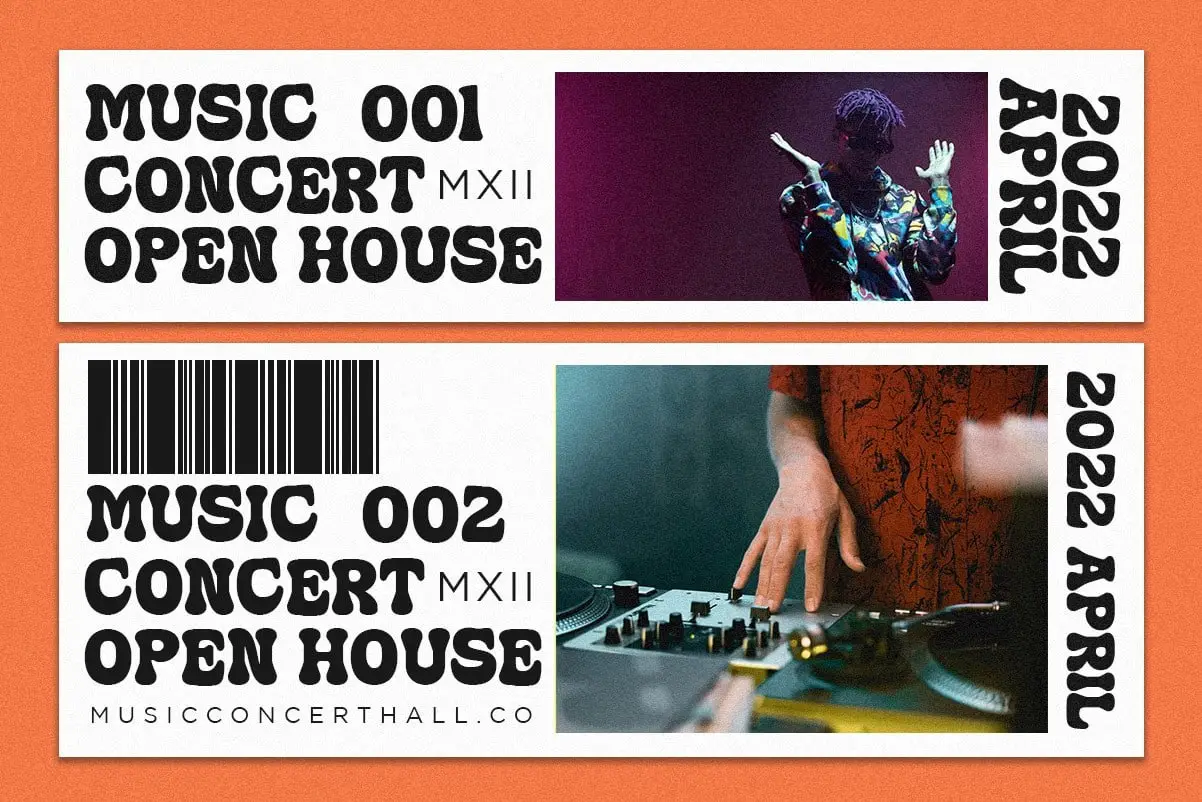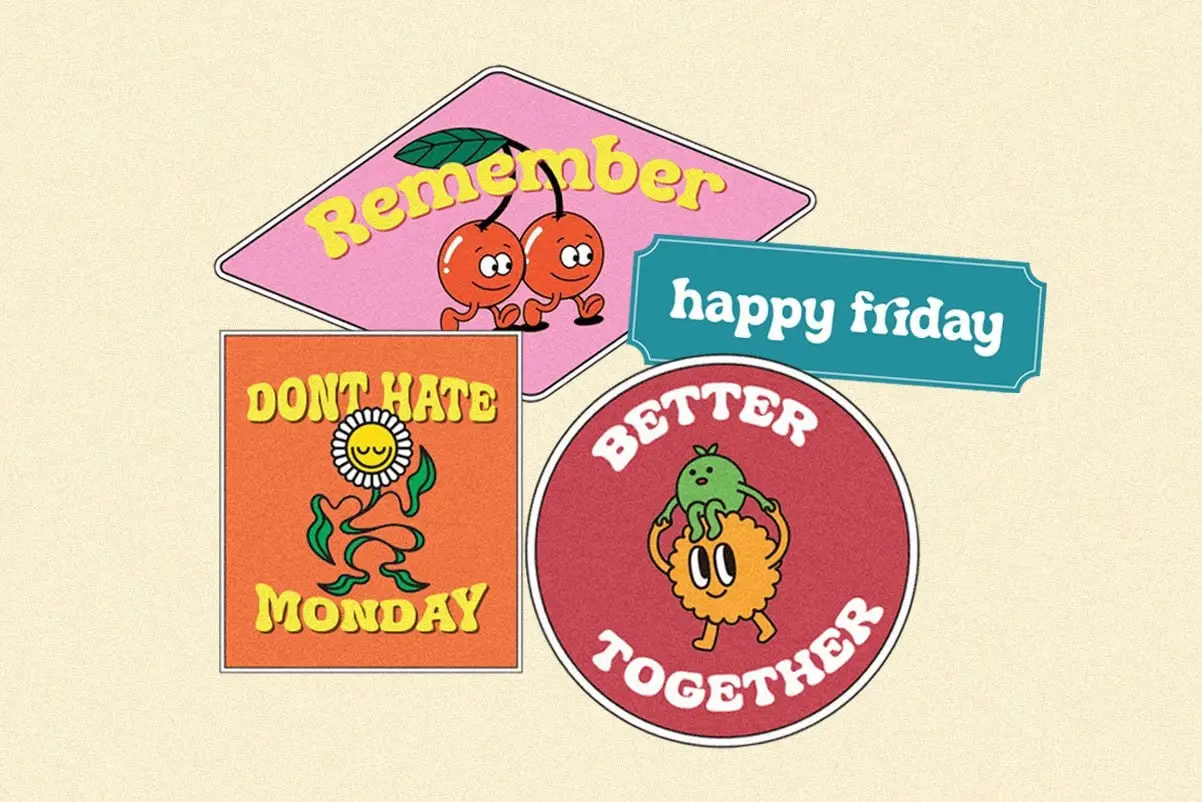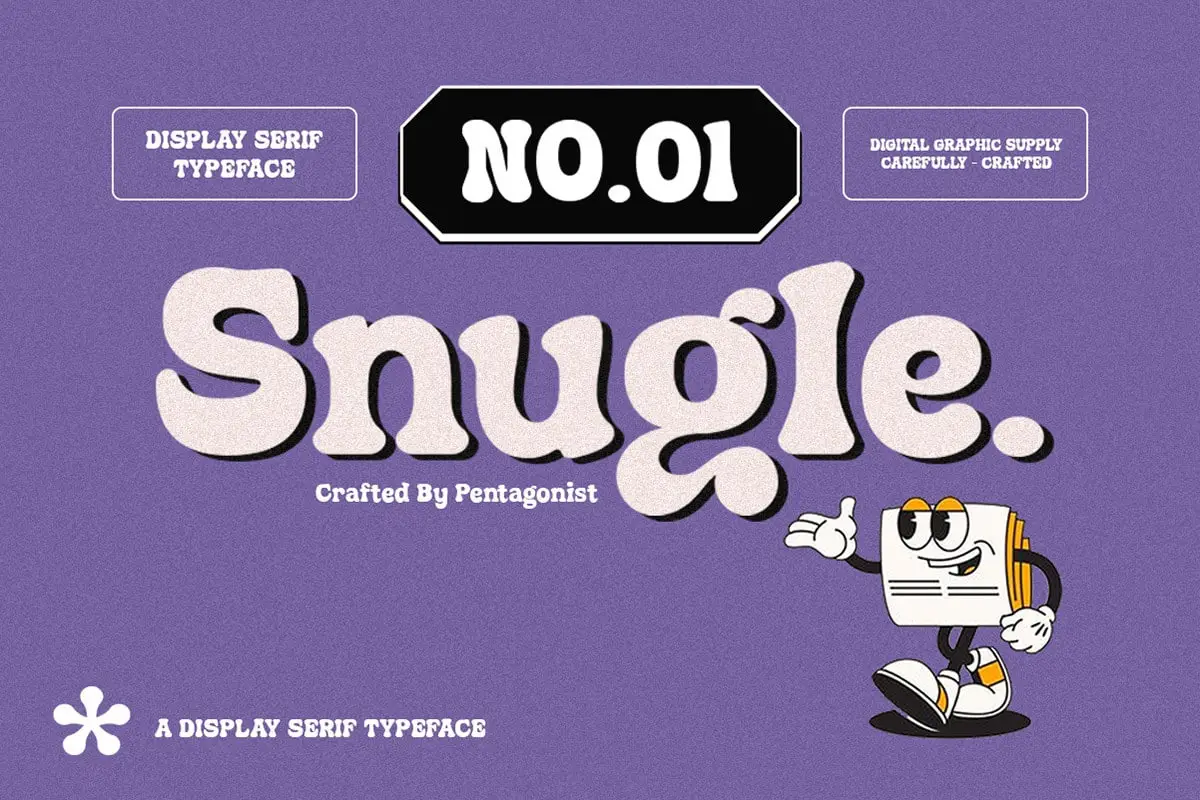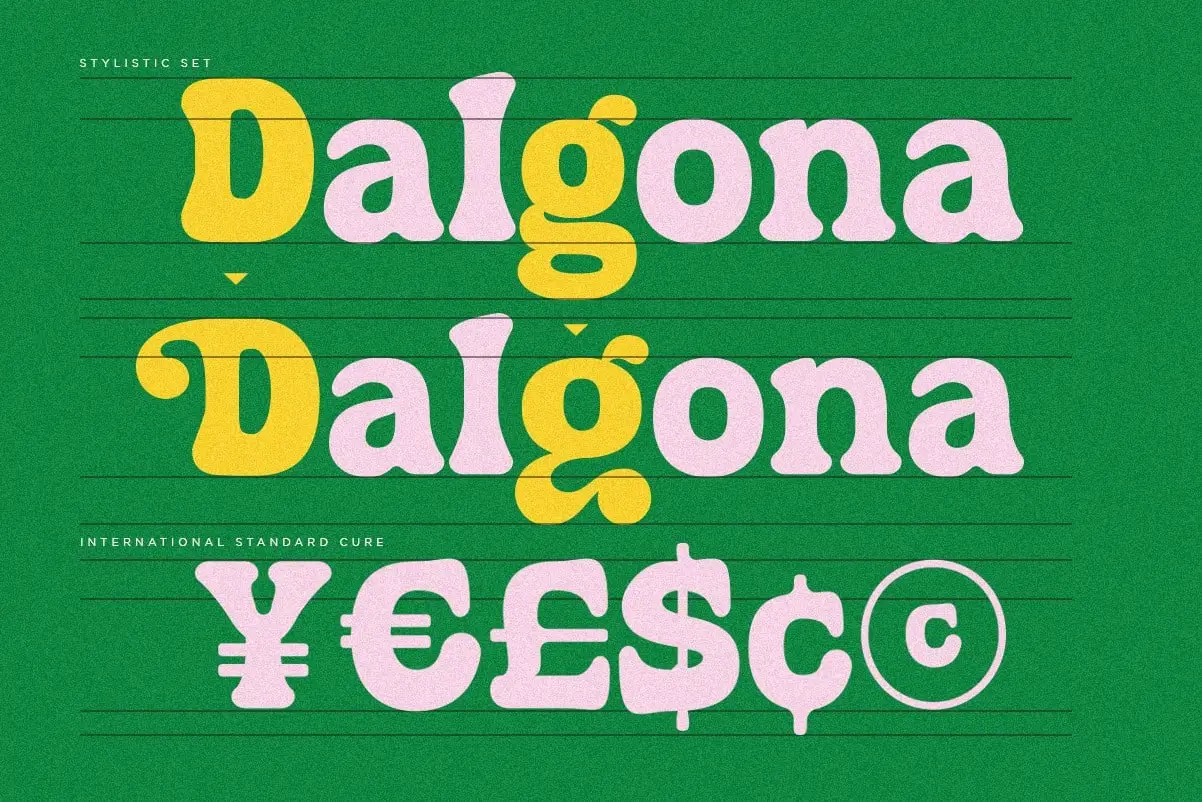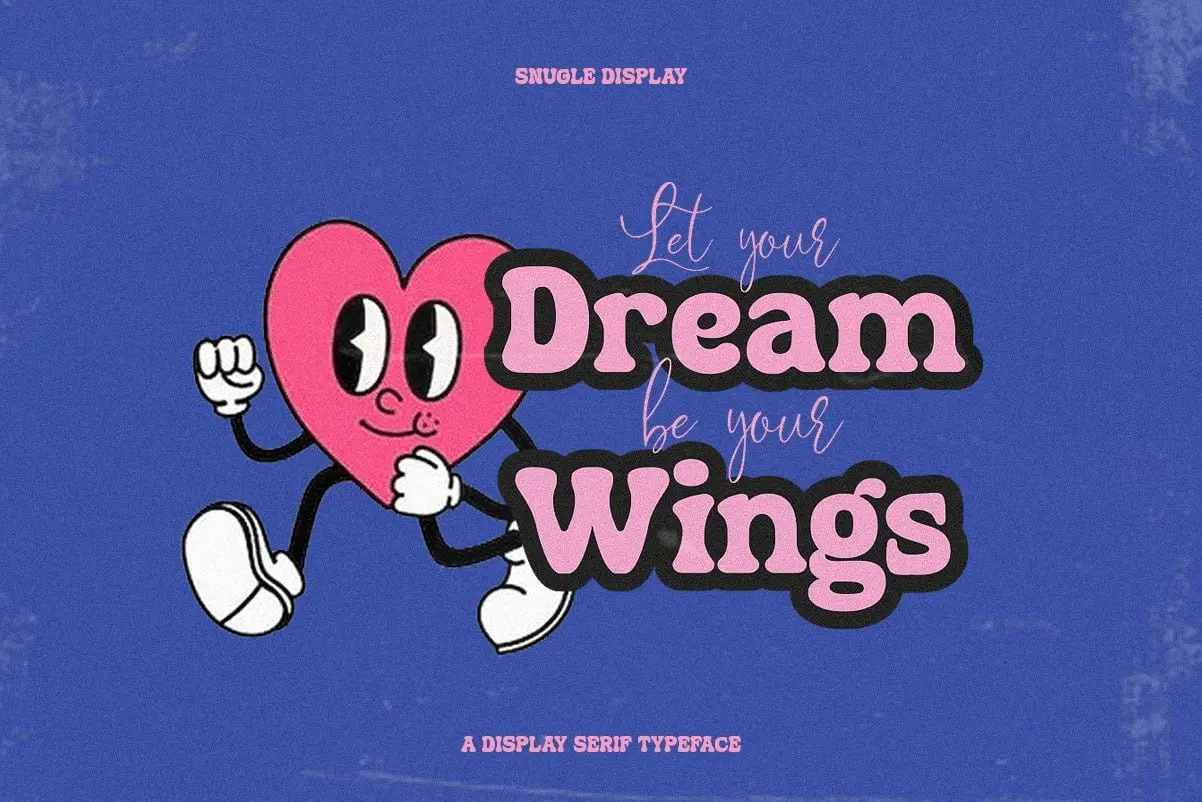
Snugle Font By Pentagonistudio
The Snugle Font by Pentagonistudio is a beautifully crafted typeface that combines elegance with a modern touch. This font features a unique blend of soft curves and sharp edges, making it suitable for a variety of design projects.
• Weight options: Regular, Bold
This versatile font is perfect for branding, logo design, web content, and print materials. Its unique style can add a distinctive flair to any project.